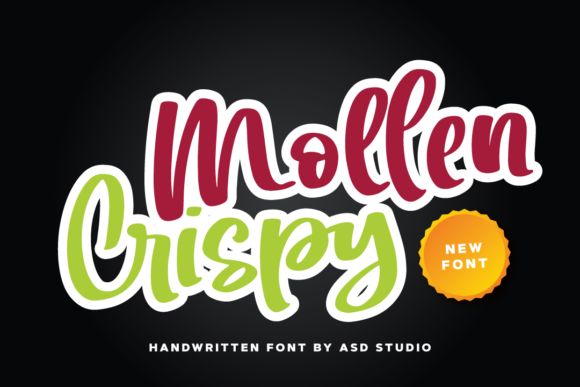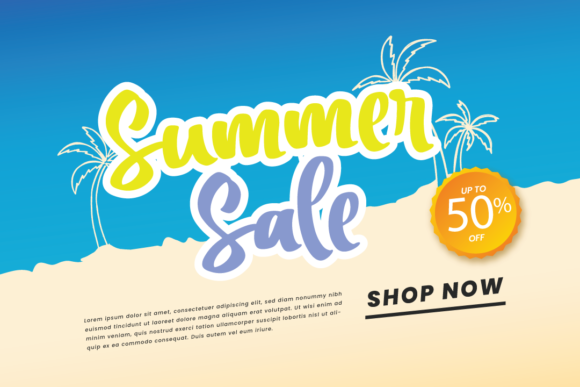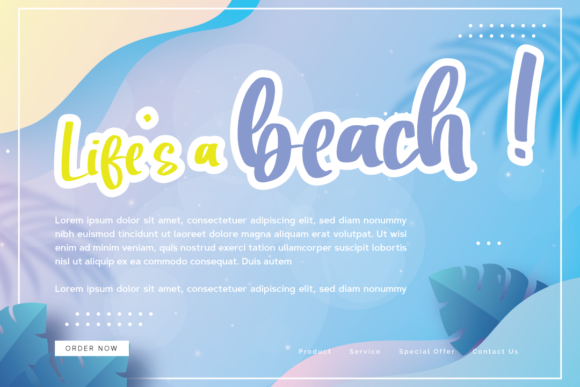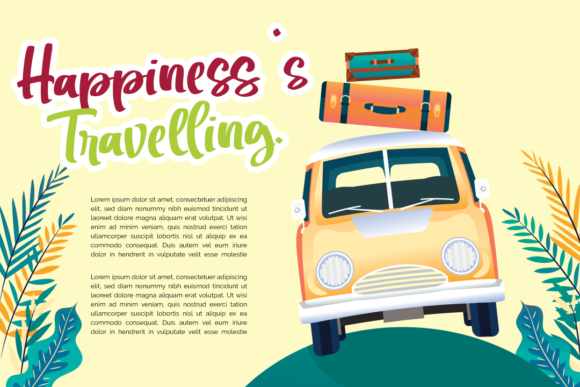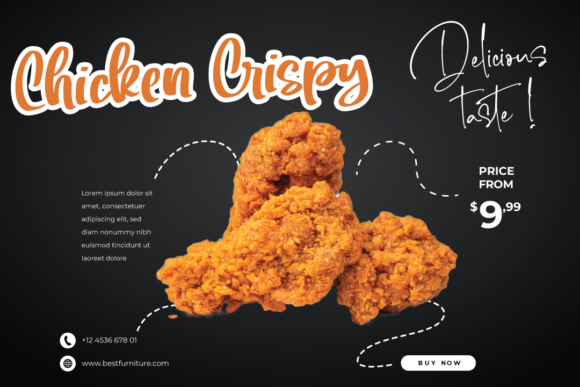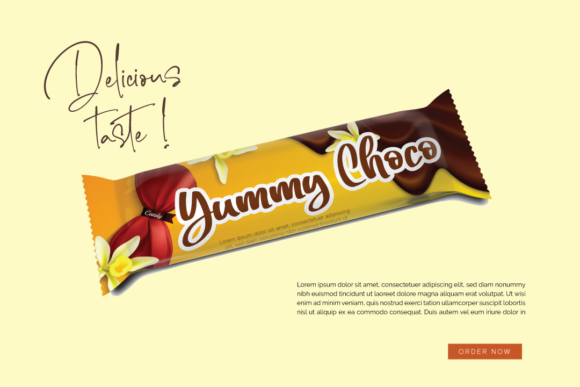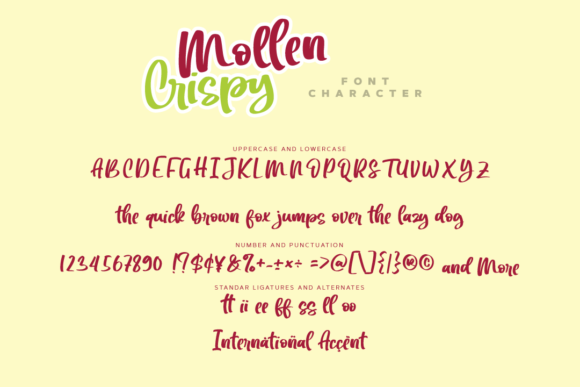
Mollen Crispy Font
About Mollen Crispy Font
Mollen Crispy is a cool and trendy handwritten font. It is the best choice for creating eye catching logos, branding and quotes. Every letter has a unique and beautiful touch, which will make your design come alive!